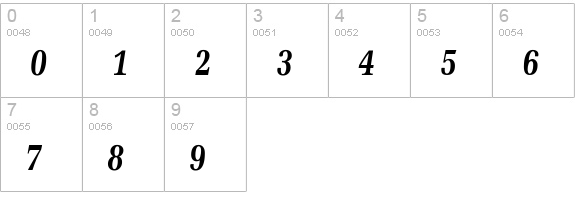
MemoirCondensed Bold Italic Font Details
MemoirCondensed Bold Italic is a strong, high-contrast, italic variant in the MemoirCondensed typeface family \xE2\x80\x94 well suited to headlines, attention-grabbing titles, and strong calls-to-action.
MemoirCondensed Bold Italic font exudes elegance and sophistication with its striking design. The bold italic style adds a touch of drama and flair to any project, making it perfect for creating eye-catching headlines or emphasis in your designs. This font is not only visually appealing but also highly versatile, suitable for a wide range of design applications. Whether you are working on branding, advertising, editorial design, or any other creative project, MemoirCondensed Bold Italic font will make a statement. The best part is that MemoirCondensed Bold Italic font is available for free download at FontsMarket.com. Now you can easily access this stylish and impactful font to elevate your designs without any cost. Don't miss out on the opportunity to add this stunning typeface to your font collection today!